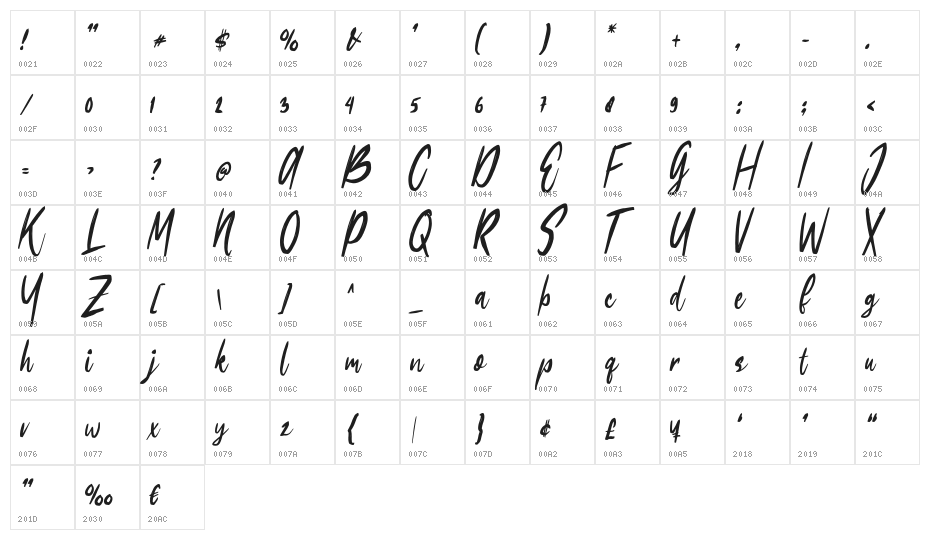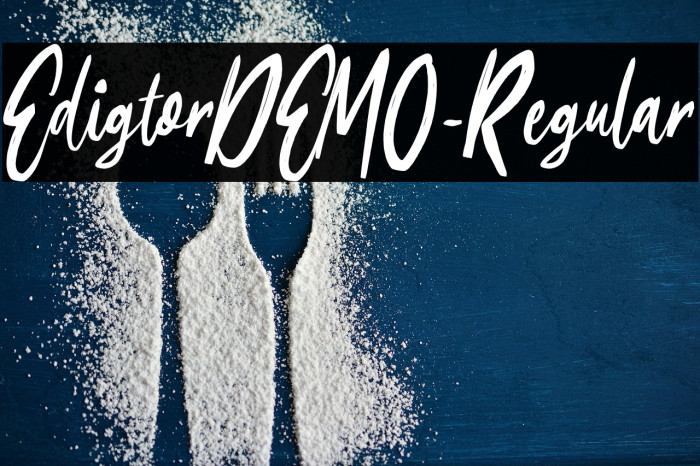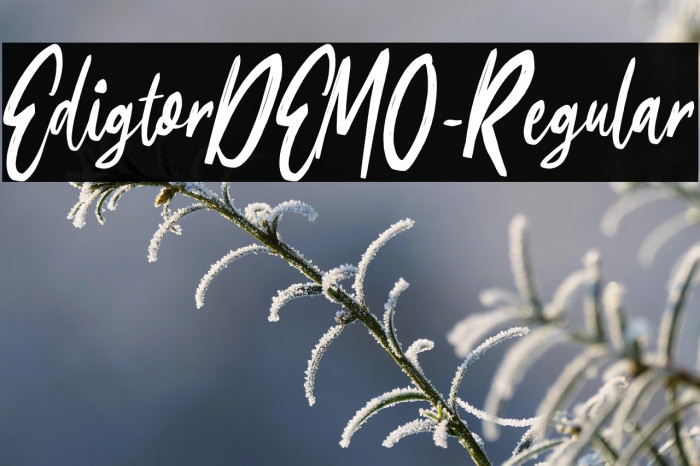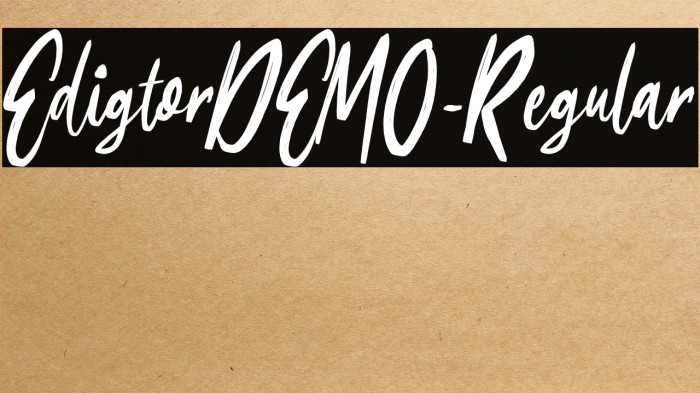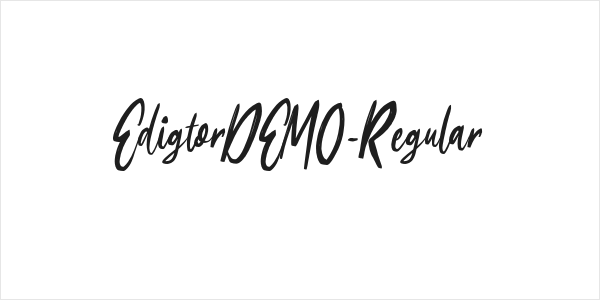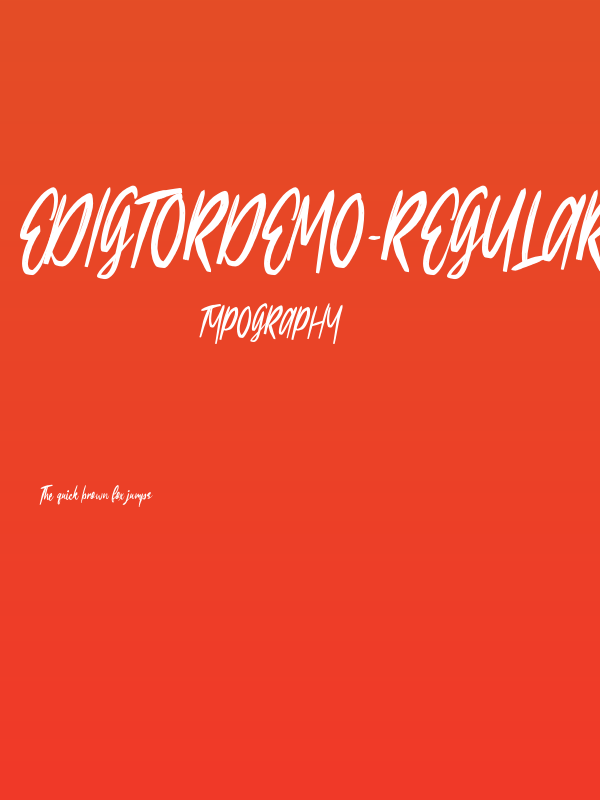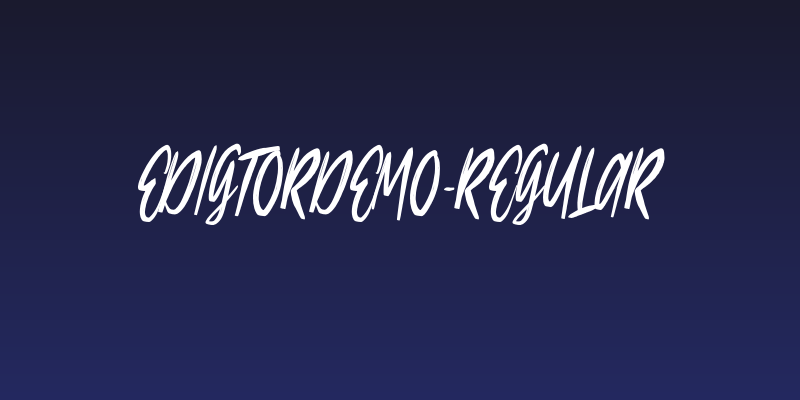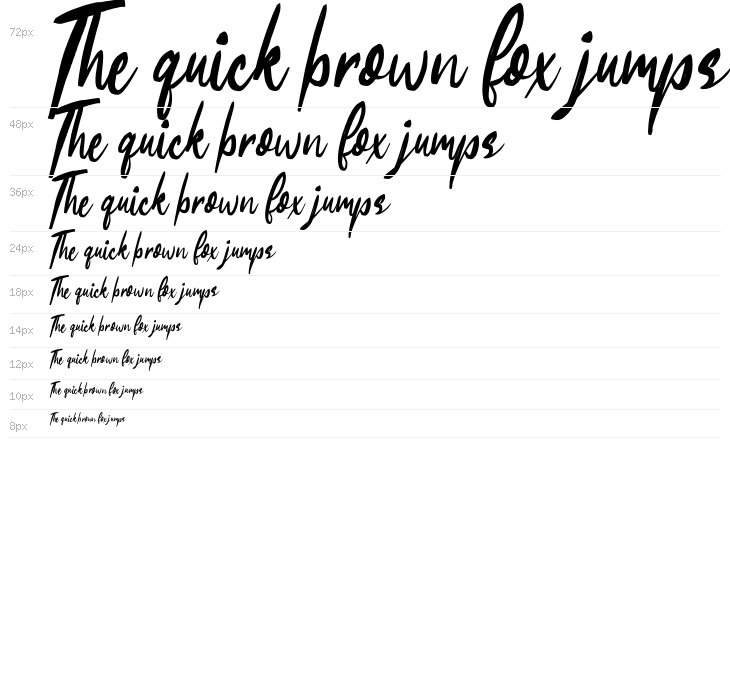
EdigtorDEMO-Regular Font
EdigtorDEMO-Regular Description
This font features a dynamic, handwritten style with a strong, expressive character. The uppercase letters are bold and slightly slanted, giving a sense of movement and energy. The lowercase letters maintain a consistent flow, with smooth curves and a natural, cursive appearance. Numbers and special characters are designed to match the overall aesthetic, providing a cohesive look. The strokes vary in thickness, adding a touch of elegance and flair. This font is ideal for projects that require a personal, artistic touch.
| Use Case | Logos, Headlines, Invitations |
| Proposed Projects | Perfect for branding, invitations, posters, and creative projects that require a personal touch. |